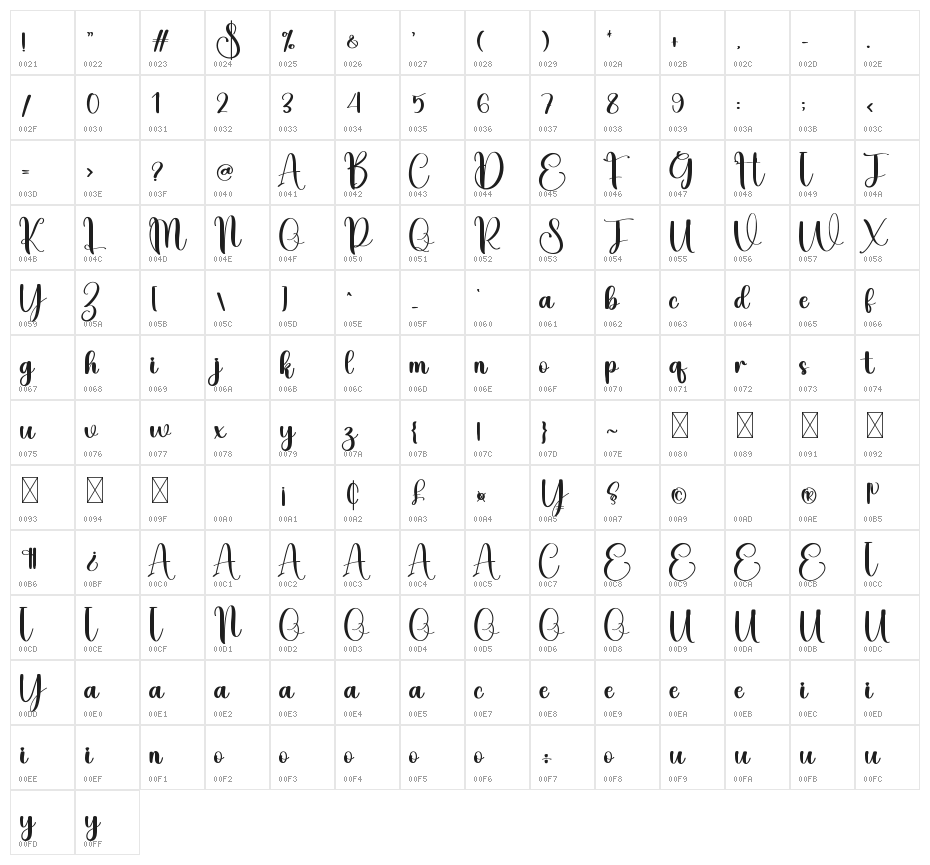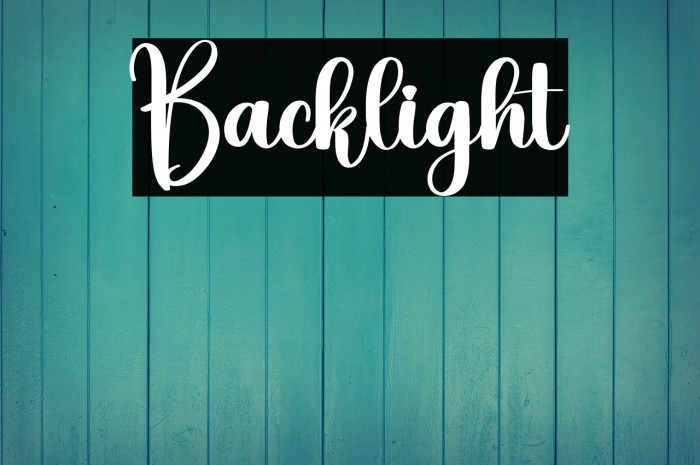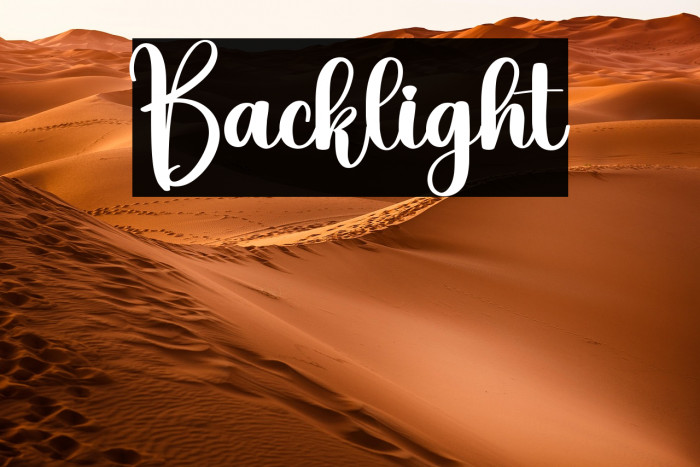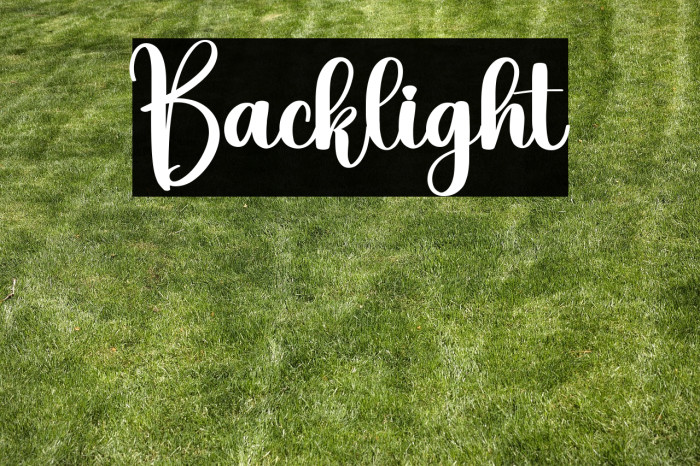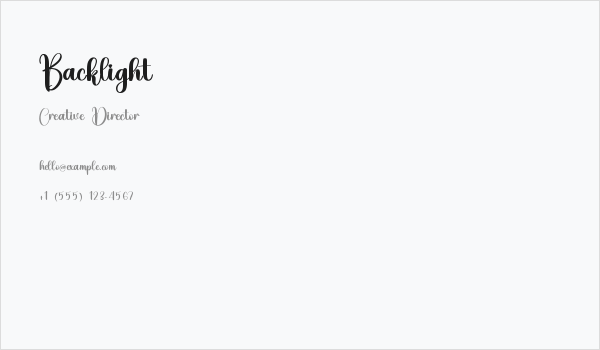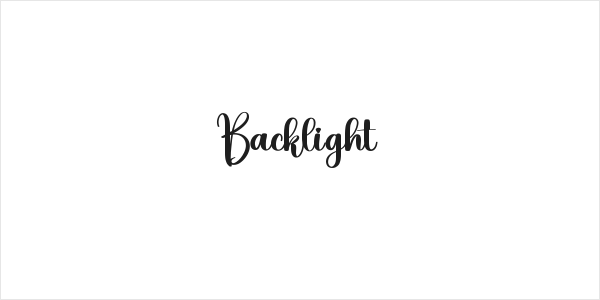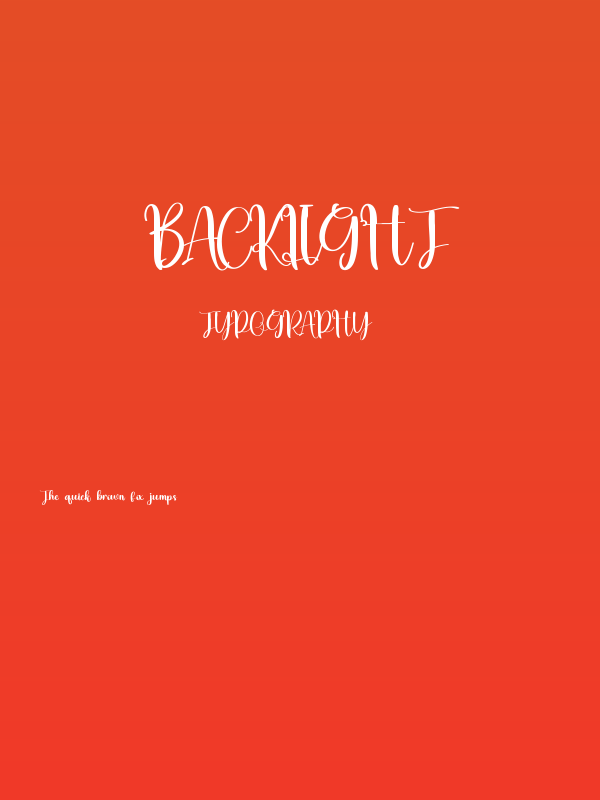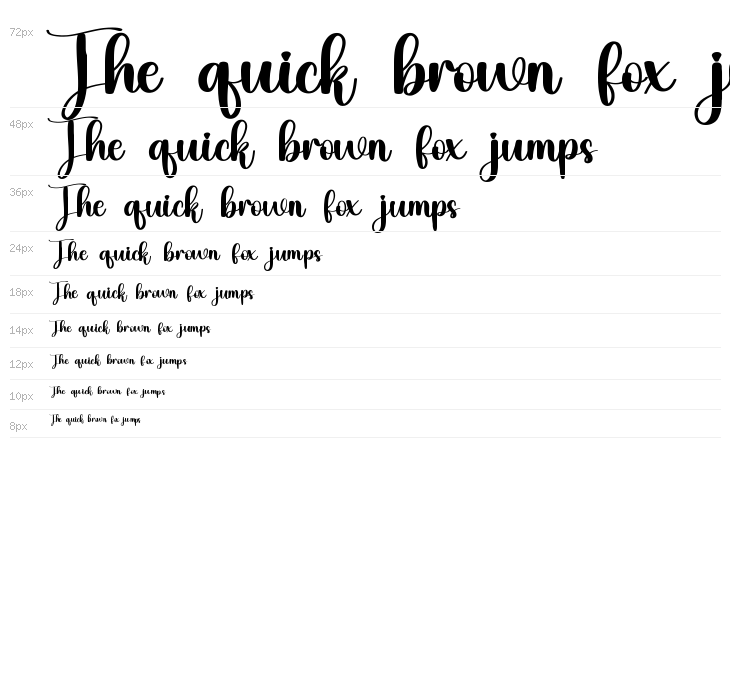
Backlight Font
✎ Script
Backlight Description
This font features an elegant, flowing script style that combines both classic and modern elements. The uppercase letters are characterized by their tall, sweeping curves and intricate loops, giving them a sense of grandeur and sophistication. The lowercase letters maintain a consistent flow with rounded forms and smooth connections, enhancing readability while preserving the decorative nature of the script. Numbers and special characters are designed with the same attention to detail, ensuring a cohesive look across all elements. The font's overall appearance is both graceful and dynamic, making it suitable for a variety of creative applications.
| Use Case | Logos, Invitations, Decorative text |
| Proposed Projects | Ideal for wedding invitations, branding, greeting cards, and elegant packaging designs. |